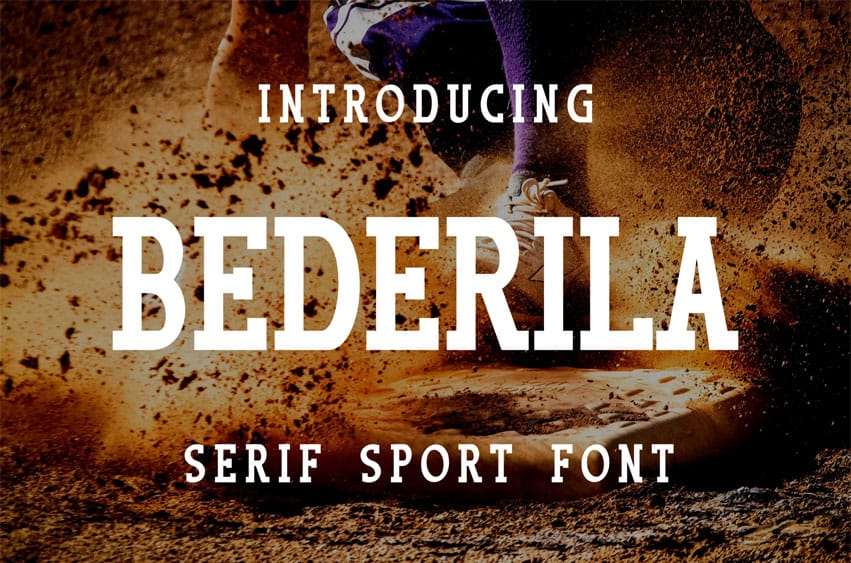
Bederila Font Bold and sturdy serif font for hard-hitting ball games like baseball and others.
This font is made thicker as usual, and given another touch at the end of the serif, allowing it to have a new and fresh look.